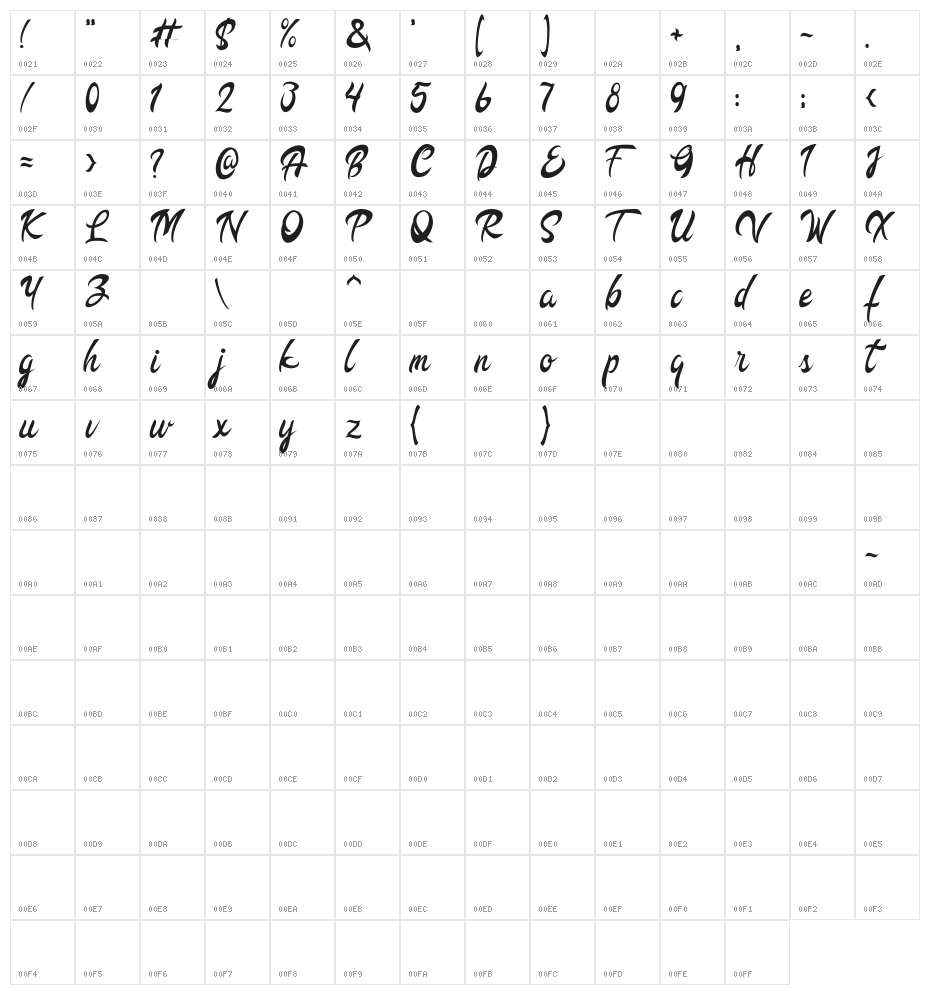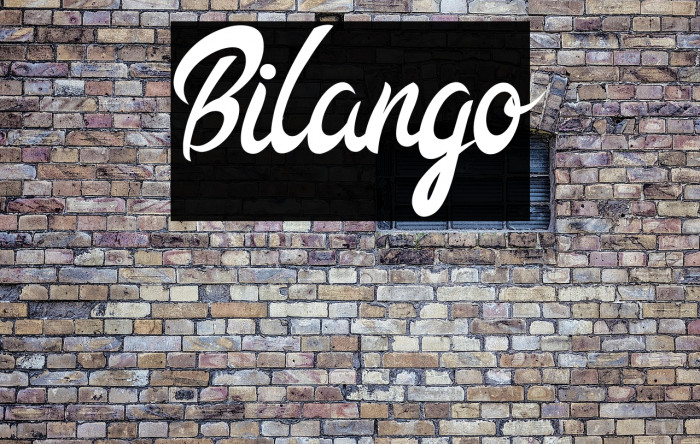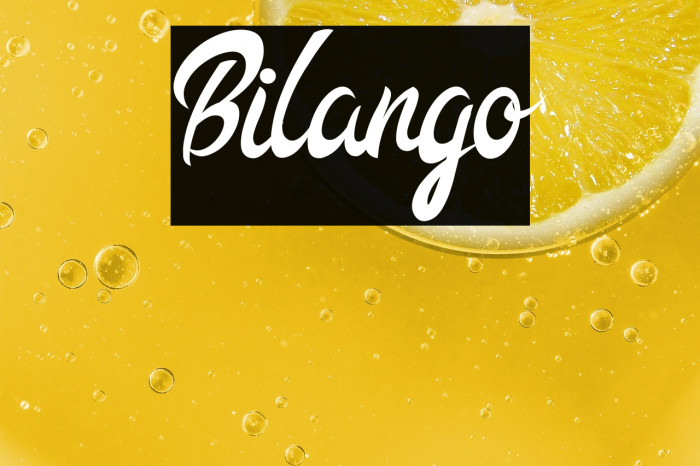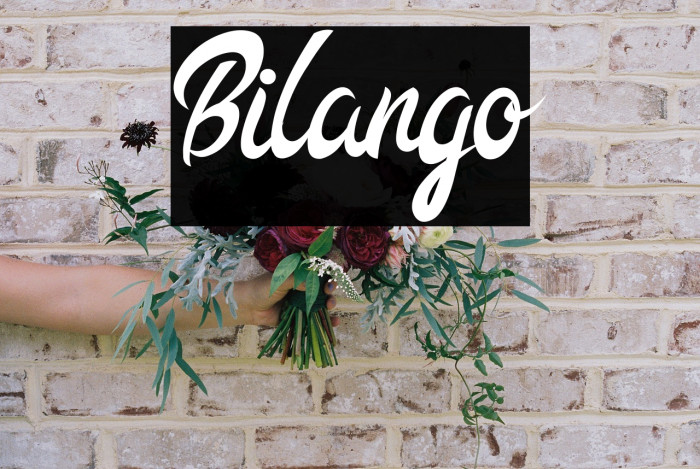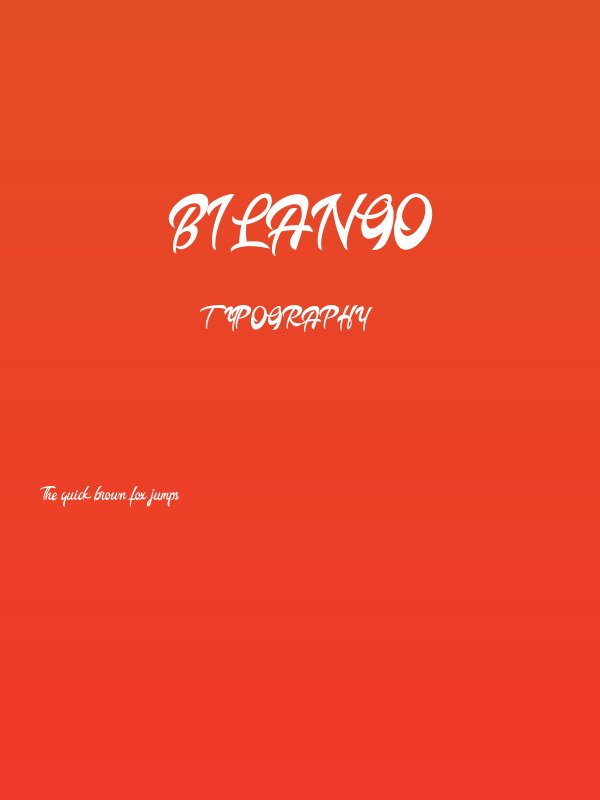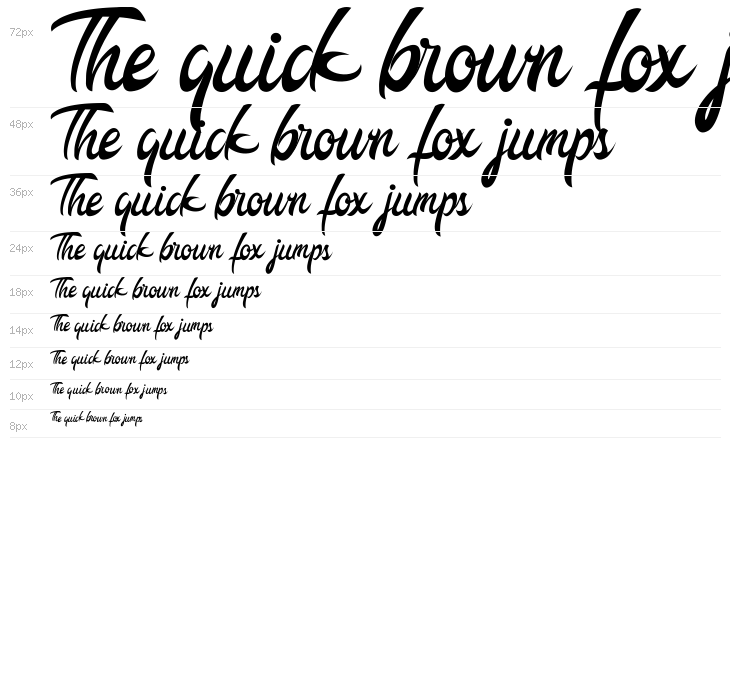
Bilango Font
Bilango Description
This font features a dynamic and fluid script style, characterized by its bold and sweeping strokes. The letters are interconnected, giving a sense of continuity and flow, reminiscent of elegant handwriting. The uppercase letters are particularly striking, with dramatic flourishes and a sense of movement. The lowercase letters maintain this fluidity, with some characters extending below the baseline, adding to the font's expressive nature. The numerals are consistent with the overall style, featuring similar curves and boldness. Special characters are well-integrated, maintaining the font's cohesive look. This font exudes a sense of sophistication and creativity, making it suitable for projects that require a personal touch.
| Use Case | Logos, Headlines, Invitations |
| Proposed Projects | Ideal for wedding invitations, greeting cards, branding, and logo design. |